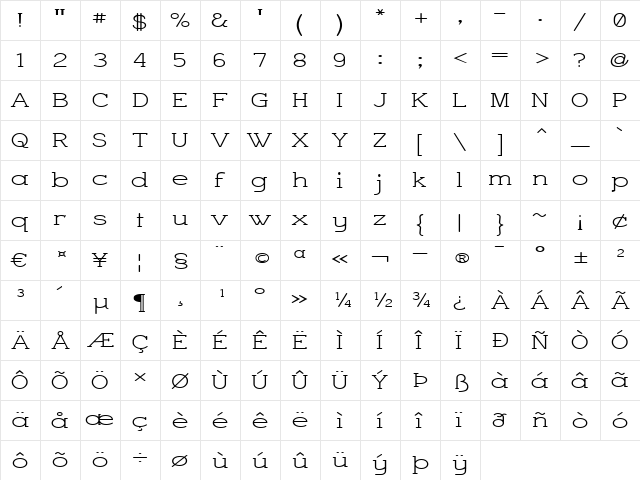
Charrington Wide Regular
| Designer | Graham Meade |
Design Context for Charrington Wide Typeface
Charrington Wide takes a measured approach to typography — its balanced proportions and neutral character make it a reliable workhorse for both digital and print work.